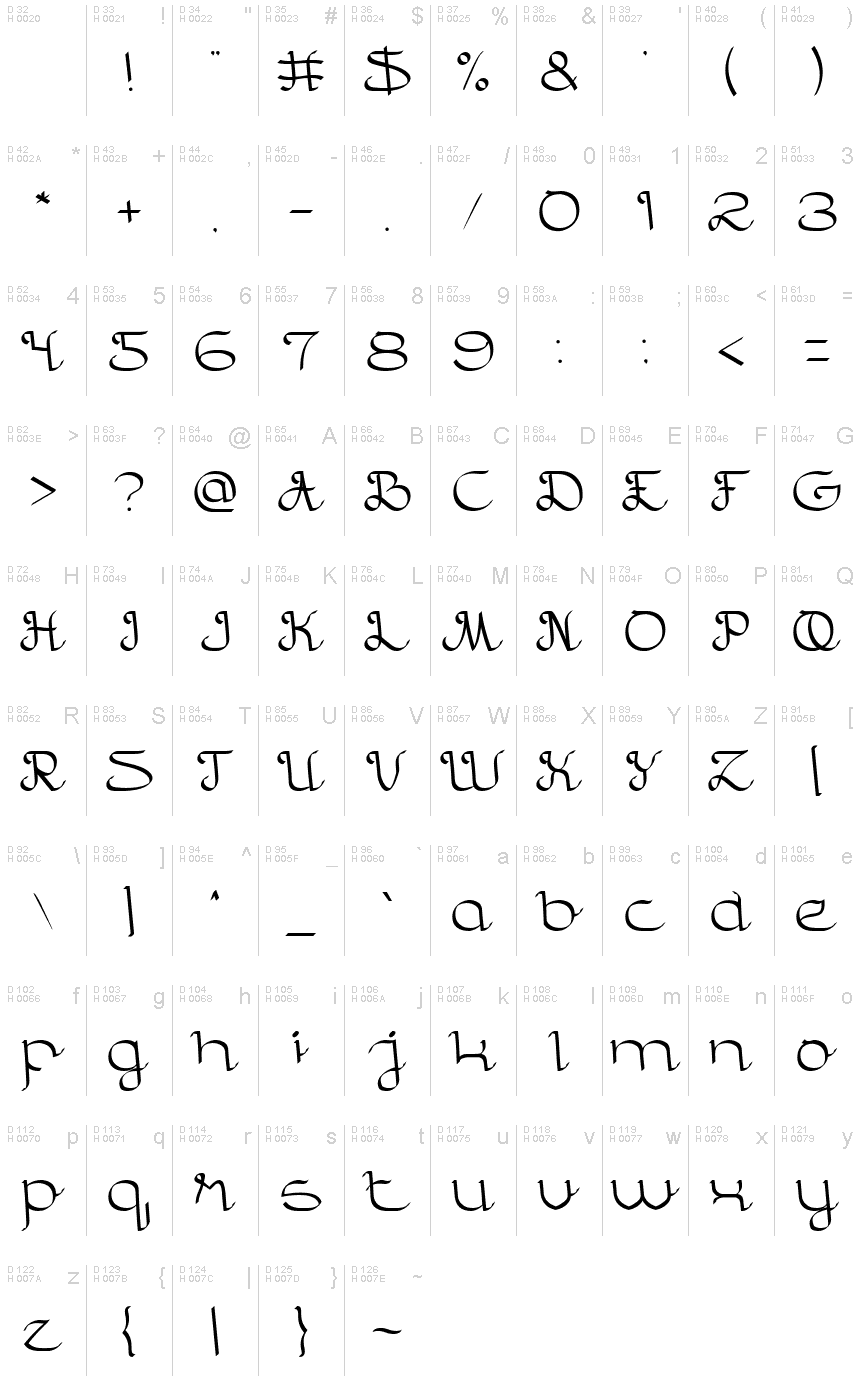
Entertainment by Weknow is a free handwritten display font with theatrical, sharply flourished letterforms. Its broad loops and sweeping curves meet narrow, pointed strokes, producing an ornate silhouette with lively changes in width.
Poster design is its clearest role, especially for stage productions or dramatic event promotions. The same decorative sweep can shape album covers, fashion packaging, and expressive merchandise with a slightly eccentric edge. Its exaggerated forms suit cabaret, fantasy, and other performance-driven themes that benefit from lettering resembling a custom-drawn title.